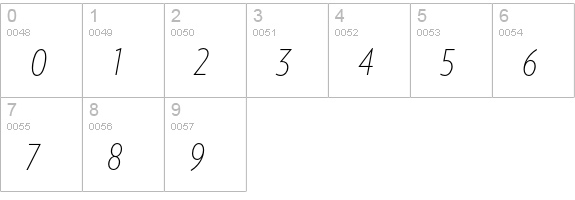
Verlag Condensed XLight Italic Font Details
Verlag Condensed XLight Italic is a distinctive, condensed-width, italic variant in the Verlag typeface family \xE2\x80\x94 well suited to design and typography projects.
Verlag Condensed XLight Italic font exudes elegance and sophistication with its sleek and slender design. The delicate italic style adds a touch of flair and grace to any text, making it perfect for a variety of design projects. Whether you're creating a modern website, a stylish brochure, or a sleek logo, this font will elevate your work to the next level. Best of all, Verlag Condensed XLight Italic font is available for free download at FontsMarket.com. Now you can enjoy the beauty and versatility of this font without any cost. Don't miss out on this opportunity to enhance your designs with a font that is both refined and free to use. Download Verlag Condensed XLight Italic font today and see the difference it makes in your projects!